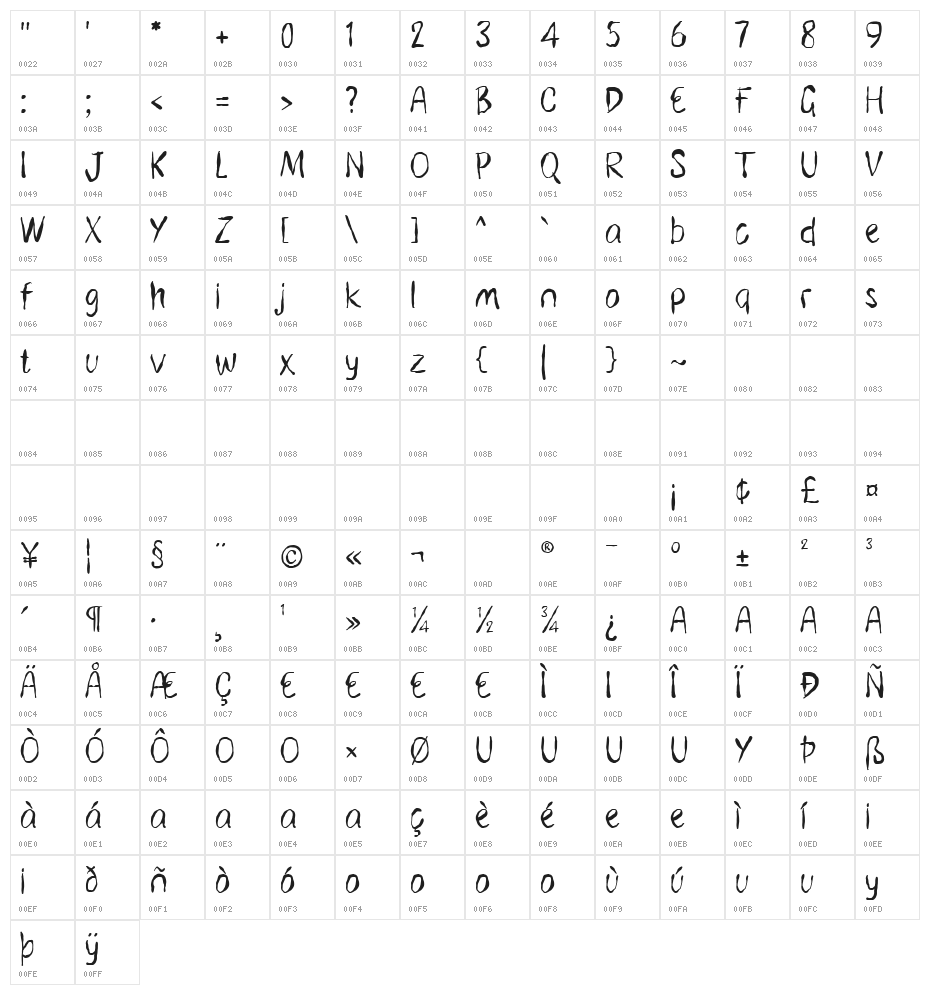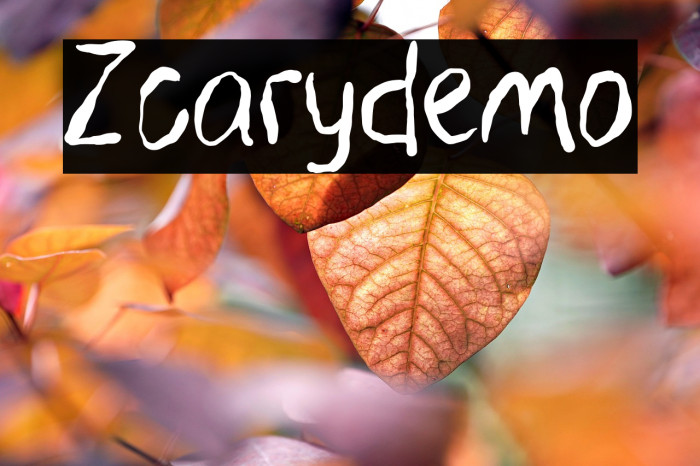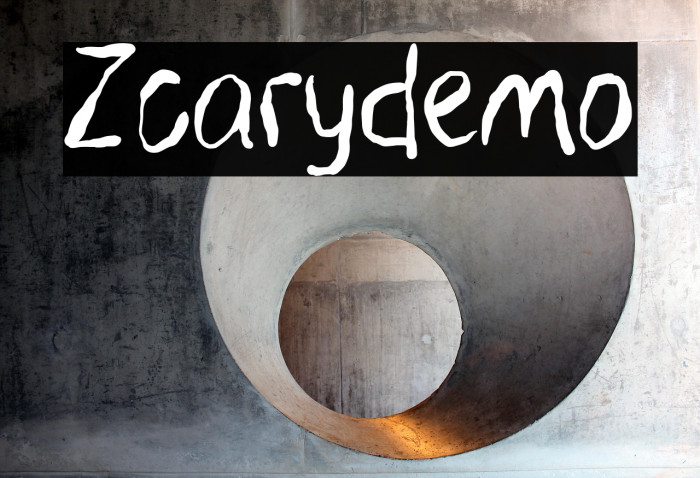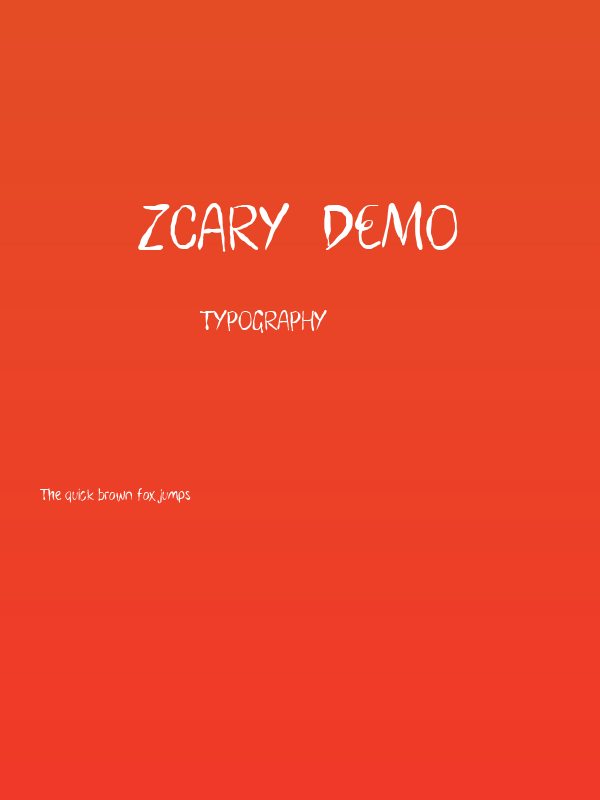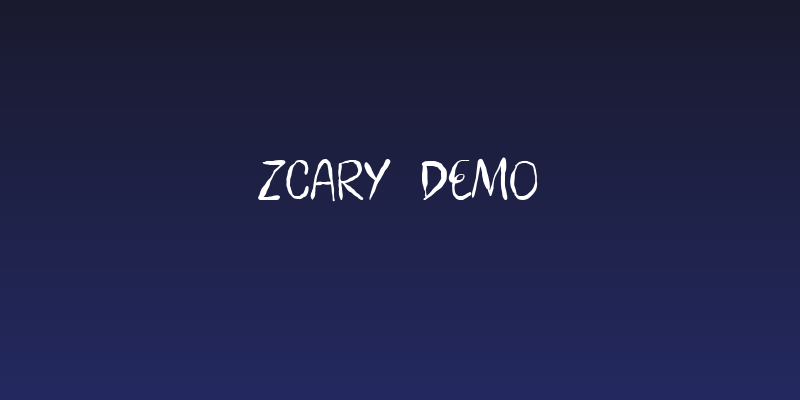
Zcary-demo Font
Zcary-demo Description
This font exhibits a hand-drawn, brush-like appearance with irregular strokes and a slightly rough texture. The characters are unevenly shaped, giving it a casual and artistic feel. The uppercase and lowercase letters maintain a consistent style, with varying stroke thickness that adds to its organic look. The numbers and special characters follow the same aesthetic, ensuring a cohesive design. This font's unique style makes it stand out, suitable for creative and expressive projects.
| Use Case | Headlines, Posters, Artistic Designs |
| Proposed Projects | Ideal for artistic projects, posters, album covers, and any design requiring a creative and expressive touch. |